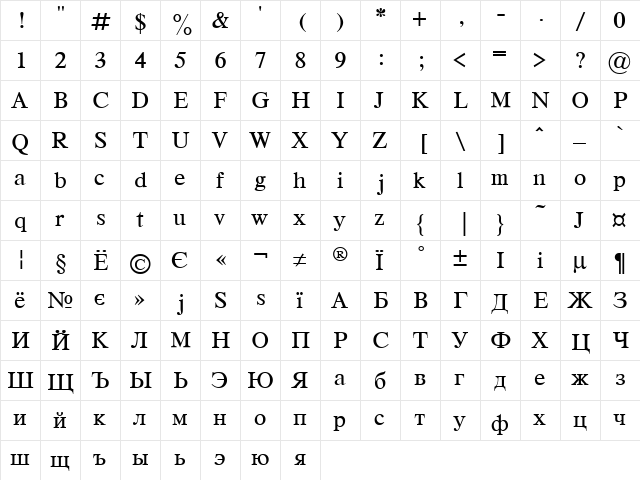
Dutch Regular
Design Context for Dutch Typeface
Dutch takes a measured approach to typography — its balanced proportions and neutral character make it a reliable workhorse for both digital and print work.